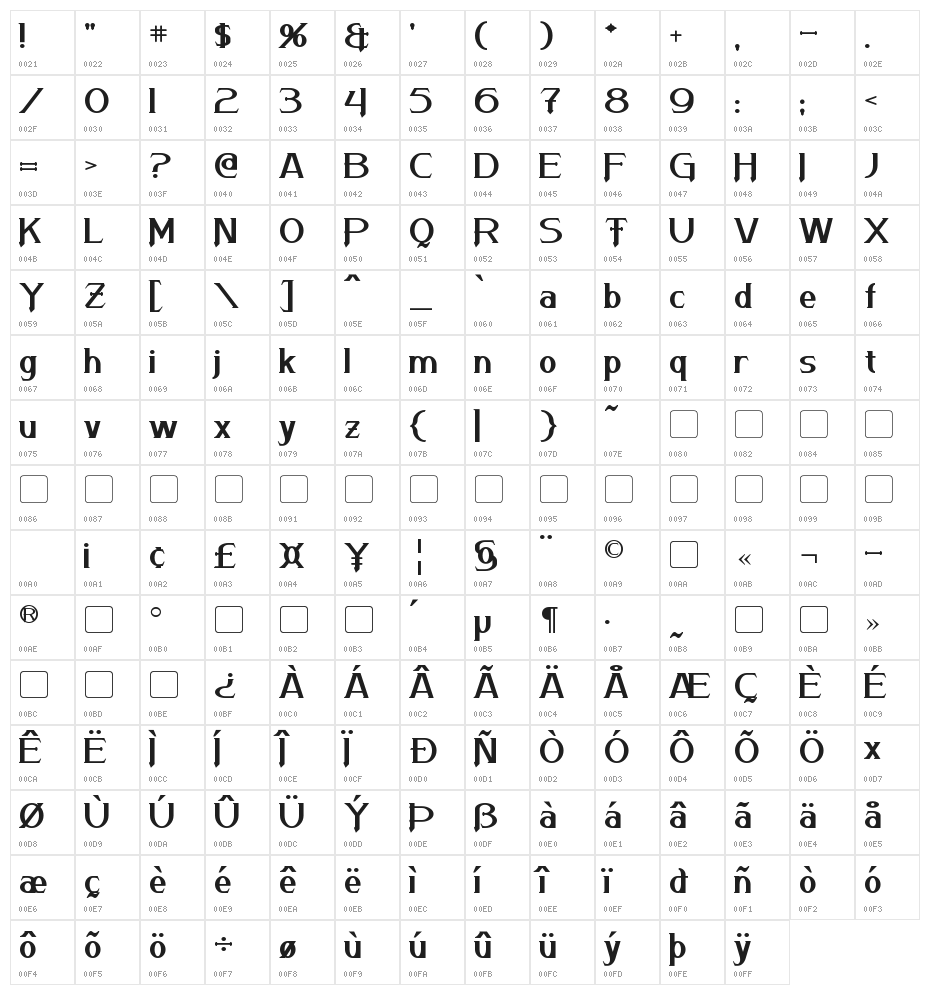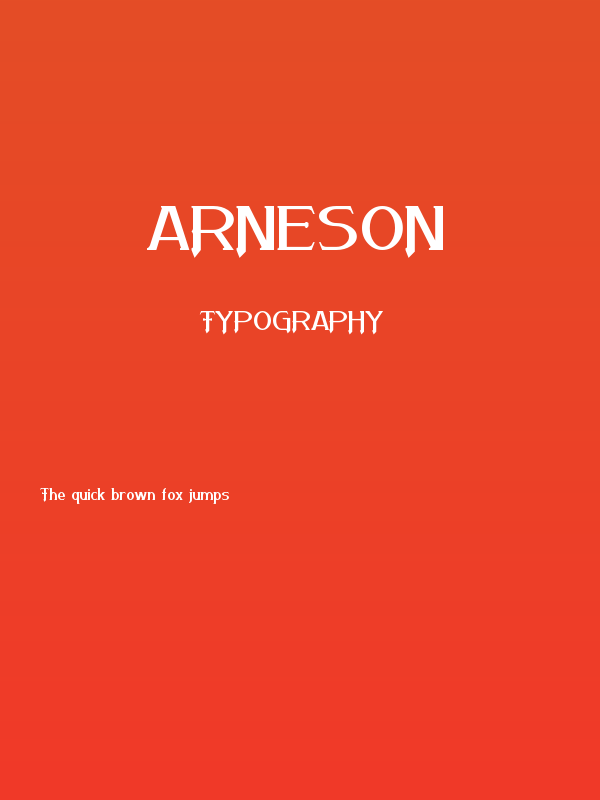
Arneson Font
Arneson Description
This font features a bold and striking design with a distinct Gothic influence, characterized by sharp angles and pointed serifs. The uppercase letters exhibit a strong presence with their angular forms, while the lowercase letters maintain a consistent style that complements the uppercase. The numerals are equally bold, ensuring readability and impact. Special characters are uniquely styled, adding to the font's overall decorative appeal. This font's design is perfect for projects that require a dramatic and eye-catching typeface.
ARNESON UPPERCASE
ARNESON LOWERCASE
ARNESON OTHER CHARS
| Proposed Projects | Ideal for branding, posters, book covers, and any project needing a dramatic and eye-catching typeface. |